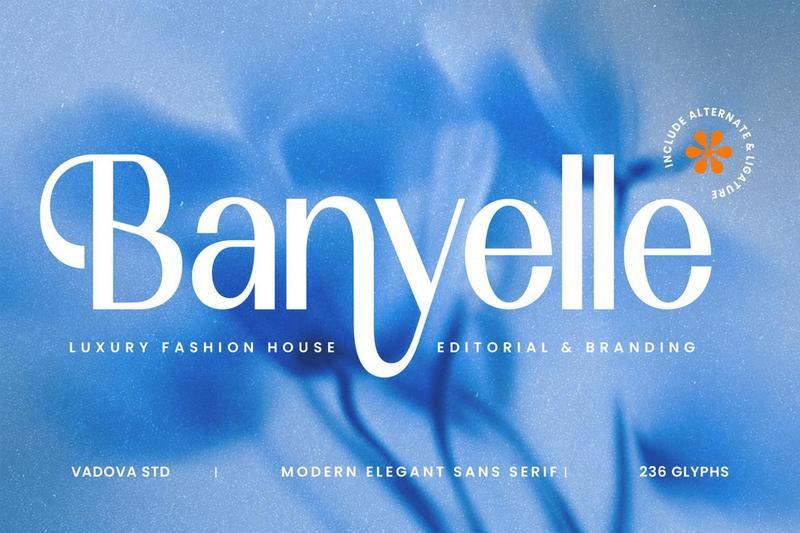
**Banyelle Modern Sans Serif Font** is a sophisticated display typeface distinguished by its tall proportions, refined high-contrast strokes, and elegantly elongated letterforms. The design merges modern sans serif construction with subtle art-deco influences, creating a graceful visual rhythm that feels luxurious, fashion-forward, and editorial in character. Distinctive alternate glyphs and carefully sculpted curves introduce a sense of individuality, allowing the typeface to appear both contemporary and timeless. Its clean geometry is softened by delicate curves and tapered details, resulting in typography that feels polished, feminine, and highly sophisticated without becoming overly decorative.
Designed for high-end visual communication, Banyelle includes 236 glyphs, uppercase and lowercase characters, numerals, punctuation,standard ligatures, and stylistic alternates. Whether used for luxury logos, fashion campaigns, cosmetic packaging, editorial layouts, magazine headlines, wedding stationery, or premium digital content, Banyelle delivers distinctive typography with excellent readability and an elegant visual presence across both print and screen media. The balanced spacing and slender vertical forms give Banyelle a light, airy presence that performs beautifully in large headlines and premium brand applications.
**Main Features:**
* Uppercase & Lowercase
* Numeral & Punctuations
* Standard Ligatures & Alternate
**Suitable For:** Banyelle is perfect for fashion houses, cosmetic packaging, jewelry identities, perfume campaigns, editorial publications, boutique labels, wedding stationery, and hospitality branding that require typography with a refined and expressive presence. Its tall proportions, distinctive alternate characters, and graceful contrast make it especially effective for logo systems, magazine headlines, product labels, social media campaigns, presentation covers, and visual identities where typography is intended to communicate sophistication, exclusivity.